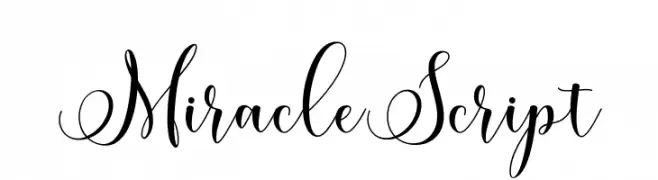
A sophisticated script font with elegant swashes and flowing cursive letterforms.
An elegant script font with flowing, interconnected letters and decorative swirls.
An elegant script font with flowing, interconnected letters and decorative swashes.
An elegant script font with intricate swashes and flowing lines.
An elegant, flowing script font with refined cursive letters and ornate flourishes.
An elegant script font with flowing, cursive strokes and decorative flourishes.
An elegant script font with flowing, interconnected letters and classic calligraphic style.
A graceful and elegant script font with flowing, ornate swashes.
A modern, elegant script font with flowing, interconnected characters.
A cursive, handwritten-style font with elegant, flowing characters.